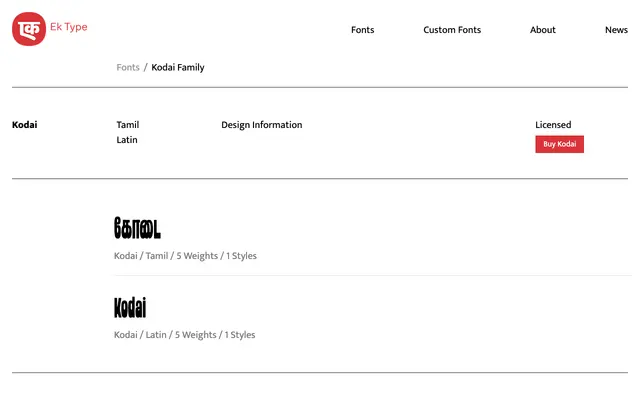
A narrow, bottom-heavy display typeface covering Tamil and Latin scripts, with a variable weight axis running from a crisp Black to a leaner Regular.
Designed for titles, posters and brand identities, Kodai carries a jolly, summery character across five weights with a single upright style. The family comes in two subfamilies, one for Tamil and one for Latin, sharing the same narrow proportions and pronounced bottom weight. Its variable axis allows smooth transitions between weights, making it suited to packaging, entertainment branding, food and games where a bold, playful voice is needed.
Kodai is explicitly described as a display typeface with a narrow, bottom-heavy construction and bold personality suited to titles and posters, placing it firmly in the display category with a sans-serif structure.